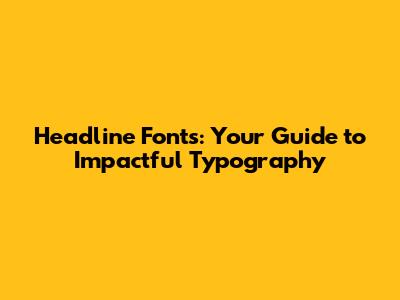
Headline Fonts: Your Guide To Impactful Typography
Hey guys, let's dive into the awesome world of headline fonts! Ever scrolled through a magazine, a website, or even a billboard and been instantly drawn in by the big, bold text? That's the power of a great headline font at play! Essentially, a headline font is a typeface specifically chosen to grab attention and convey the main message of a piece of content. Think of it as the welcoming committee for your article, your product, or your brand – it needs to be inviting, clear, and impactful. Unlike body text fonts, which are designed for readability over long stretches, headline fonts prioritize immediate impact and visual appeal. They need to stand out, make a statement, and entice the reader to dive deeper. The right headline font can make or break the first impression your content makes. It’s not just about choosing pretty letters; it’s about strategic design that communicates tone, personality, and importance. Whether you’re designing a poster, writing a blog post, or crafting an advertisement, understanding headline fonts is a game-changer. We're talking about fonts that are often bolder, larger, and more distinctive than the text that follows. They might be classic and elegant, modern and minimalist, or quirky and playful, depending on the message you want to send. So, stick around as we explore what makes a font a great headline font, why they matter so much, and how you can pick the perfect one for your next project. Get ready to make your headlines pop!
Why Headline Fonts Are Super Important, Guys!
Alright, let's get real for a second. Headline fonts aren't just some fancy design choice; they're crucial for effective communication. In a world flooded with information, you've got mere seconds to capture someone's attention. This is where your headline and, by extension, your headline font, comes into play. It's the first thing people see, and it needs to do a lot of heavy lifting. A compelling headline, paired with an appropriately chosen font, can dramatically increase engagement. Think about it: a boring, small font on a huge poster? It’ll likely get ignored. But a large, eye-catching font that perfectly matches the vibe of the event or product? That’s what draws people in. They act as visual signposts, guiding the reader’s eye and signaling the importance of the text. Furthermore, headline fonts are huge in establishing brand identity. Consistent use of specific headline fonts across all your marketing materials – websites, brochures, social media – creates a recognizable and professional look. It builds trust and familiarity with your audience. It’s like your brand’s unique voice, but in visual form. Different font styles evoke different emotions and associations. A strong, sans-serif font might convey authority and modernity, while a flowing script font could suggest elegance and tradition. Choosing the right font allows you to set the tone before anyone even reads a single word. It’s a powerful psychological tool. Moreover, in terms of web design and SEO, the readability of your headline is paramount. Search engines want to provide users with clear and accessible content. While font choice itself isn't a direct ranking factor, the impact and readability it provides can influence user behavior (like bounce rate and time on page), which are important signals. So, in short, headline fonts are vital for grabbing attention, conveying messages, building brands, setting tones, and even indirectly influencing user experience and search visibility. They’re the unsung heroes of design!
Types of Headline Fonts You Need to Know
Now that we know why they're so important, let's break down the types of headline fonts you'll encounter. Understanding these categories will help you make more informed decisions for your projects. We're generally looking at a few major families, each with its own distinct personality and best-use cases.
First up, we have Serif fonts. These are the classic guys, characterized by small decorative strokes, called serifs, attached to the end of the main strokes of letters. Think of fonts like Times New Roman, Georgia, or Garamond. They often convey a sense of tradition, authority, trustworthiness, and sophistication. For headlines, serif fonts can work wonders when you want to evoke a feeling of established credibility, like in a news publication, a law firm’s branding, or a historical piece. They have a certain gravitas that can make a headline feel important and well-respected. However, be mindful; some serif fonts can feel a bit dated if not used thoughtfully, so pick ones with strong character.
Next, let's talk about Sans-Serif fonts. As the name suggests, these are fonts without serifs – no little feet on the letters! Examples include Arial, Helvetica, Open Sans, and Roboto. Sans-serifs are known for their clean, modern, and minimalist aesthetic. They often convey a sense of simplicity, efficiency, and approachability. For headlines, sans-serifs are incredibly versatile and are a go-to for many modern websites, tech companies, and minimalist designs. They are generally very legible, even at large sizes, and create a contemporary feel. They’re great for making a headline look sharp and direct.
Then we have Display fonts, also known as Slab Serif or Decorative fonts. This is where things get really interesting and creative! Display fonts are designed for impact and aren't typically meant for long-form reading. They are highly stylized and can range from bold slab serifs (think Rockwell or Courier New) with thick, block-like serifs, to ornate scripts, handwritten styles, or avant-garde designs. These fonts are your secret weapon when you want a headline to be the absolute star of the show. They're perfect for posters, event invitations, book covers, or any situation where you need maximum visual flair and personality. However, use them with caution! Overdoing it can make a headline look cluttered or unprofessional. They work best when the message is short and the visual impact is the priority.
Finally, don't forget Script fonts. These mimic handwriting or calligraphy, ranging from elegant and flowing to bold and casual. Think of fonts like Pacifico or Lobster. While often seen as more decorative, certain script fonts can work as headlines if they are clear and legible enough. They can add a personal, artistic, or elegant touch, suitable for wedding invitations, artisanal brands, or creative portfolios. Just ensure they don't become too difficult to read at a glance, as legibility is still key for a headline.
Understanding these categories – Serif, Sans-Serif, Display, and Script – gives you a fantastic toolkit for selecting the right headline font to make your message shine!
How to Choose the Perfect Headline Font for Your Needs
Alright, deciding on the perfect headline font can feel a bit daunting, right? There are so many options! But don't sweat it, guys. It boils down to a few key considerations that will steer you in the right direction. The goal is to find a font that not only looks good but also effectively communicates your message and resonates with your target audience. Let's break it down.
First and foremost, consider the Tone and Personality of your content. What vibe are you going for? Are you trying to sound serious and authoritative, or fun and playful? A headline for a financial report will demand a different font than one for a children's birthday party invitation. For serious topics, lean towards classic serifs or clean sans-serifs. For something more casual or exciting, a display font or a more stylized sans-serif might be appropriate. Always think about the emotion you want to evoke. A bold, strong sans-serif can feel modern and energetic, while a delicate script can feel romantic or luxurious. The font is doing a lot of the talking here, so make sure it's saying the right thing.
Next up, Readability is King. No matter how cool a font looks, if people can't easily read your headline, it's failed its primary job. This is especially true for online content where attention spans can be short. Ensure the font is clear and legible, even at smaller sizes or when viewed on different devices. Avoid overly decorative or condensed fonts for headlines unless the design absolutely calls for it and the text is very short. Test it out! Zoom in, zoom out, view it on your phone. Can you instantly grasp what the headline says? This is non-negotiable, guys.
Then, think about your Target Audience. Who are you trying to reach? What kind of visual language do they respond to? A font that appeals to teenagers might not resonate with a more mature demographic, and vice versa. Researching your audience's preferences and the common visual trends within their communities can be incredibly helpful. For instance, a tech startup targeting young professionals might opt for a sleek, modern sans-serif, while a vintage clothing store might use a retro-inspired serif or display font.
Consider the Context and Medium. Where will this headline be seen? A font that looks amazing on a large print poster might become unreadable on a small mobile screen. Similarly, a font that works well in a short social media post might not be suitable for a book title. Think about the overall design aesthetic of the project. Does the font complement the rest of the elements, or does it clash? Harmony is key. If your body text is a simple sans-serif, a highly decorative headline font can create a nice contrast, but ensure it doesn't feel out of place.
Don't forget Brand Consistency. If you have an existing brand identity, your headline font should ideally align with it. Using a consistent set of fonts across all your platforms reinforces your brand and makes it instantly recognizable. If your brand already uses a particular style of font, try to stick within that realm or choose something that complements it. This builds recognition and trust over time.
Finally, Test and Iterate. Don't be afraid to try out a few different options. Create mockups with a couple of potential headline fonts and see which one feels the most impactful and appropriate. Get feedback from others if possible. Sometimes, what looks good to you might not have the same effect on someone else. Experimentation is part of the creative process, and it's the best way to land on that perfect choice. So, by keeping these points in mind – tone, readability, audience, context, brand, and testing – you'll be well-equipped to select a headline font that truly makes your message resonate!
Making Your Headlines Shine with the Right Font Choice
So there you have it, folks! We've journeyed through the essential world of headline fonts, understanding why they're not just decorative flourishes but fundamental tools in effective communication. From grabbing immediate attention to setting the entire tone of your content and reinforcing brand identity, the font you choose for your headlines plays a colossal role. We’ve looked at the classic distinctions between serif and sans-serif fonts, appreciated the bold impact of display fonts, and touched upon the personal flair of script fonts. More importantly, we've equipped you with a practical guide to choosing the right font – considering everything from the message's tone and the audience's expectations to the medium it will appear on and the importance of crystal-clear readability. Remember, your headline is often the very first handshake your content offers. Making that handshake firm, confident, and memorable depends heavily on the typography you employ. Don't underestimate the power of a well-chosen font to draw readers in, convey professionalism, and create a lasting impression. Whether you're a seasoned designer or just starting out with your blog or social media posts, investing a little time in selecting the perfect headline font will pay dividends. It’s about clarity, impact, and telling your story in the most compelling way possible. So go forth, experiment, and let your headlines truly shine! Happy designing, everyone!